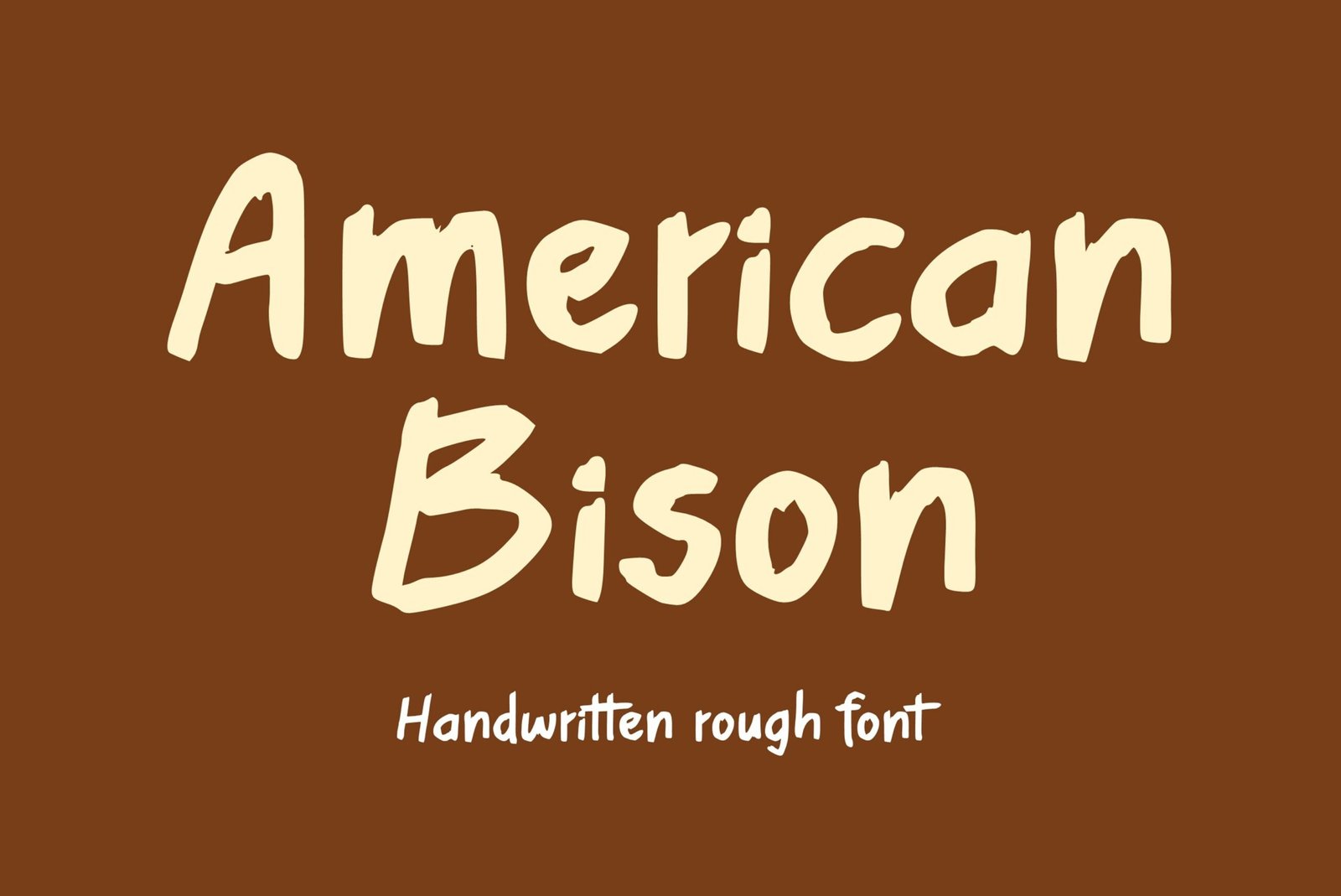
American Bison Font
Handwritten rough font. “American Bison”. Perfect for goodnotes, student projects, classroom, school teachers, advertising and display purposes, including banners, book covers, shirts, posters, logos and much more!
Font includes all upper and lowercase letters, numbers, characters, and punctuation.